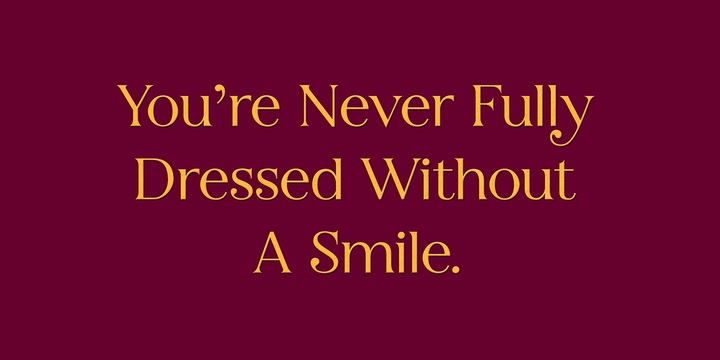
Mary Roman Font
This elegant typeface is perfect for wedding invitations, luxury branding, feminine logos, beauty product packaging, fashion magazines, romantic stationery, boutique signage, jewelry branding, and sophisticated editorial design.
What makes this font exciting is its graceful classical Roman heritage combined with contemporary feminine refinement, offering designers a timeless typeface that embodies elegance and sophistication while delivering exceptional versatility and romantic charm.
The Mary Roman font family includes light, regular, medium, bold, and italic variations, providing complete typographic solutions for refined brand communications.
Mary Roman Font features carefully balanced classical proportions with subtle feminine touches that enhance its approachable elegance. Each character demonstrates meticulous attention to optical spacing and harmonic relationships, ensuring beautiful text composition at any size. The font's gentle curves and refined serifs create natural reading rhythm while maintaining dignified presence.
Professional designers appreciate Mary Roman Font's ability to convey both authority and warmth simultaneously. Its classical heritage makes it particularly effective for luxury goods, premium services, and heritage brands. The font's versatile nature allows it to work beautifully in both traditional and contemporary contexts, adapting seamlessly to various sophisticated applications.
The complete Mary Roman Font package includes extensive multilingual character sets and professional typography features. Advanced OpenType capabilities provide designers with refined control over text appearance, including elegant ligatures and contextual alternatives. This comprehensive classical approach ensures exceptional quality whether you're creating printed materials, digital interfaces, or environmental branding applications.